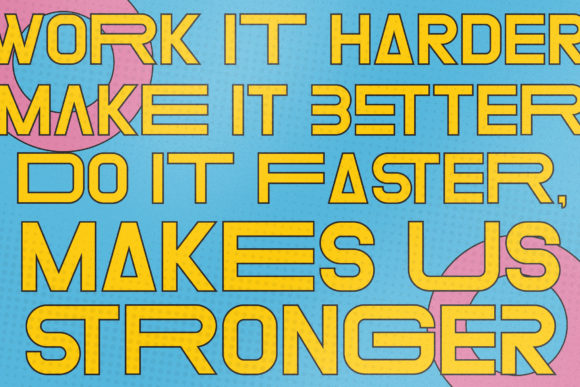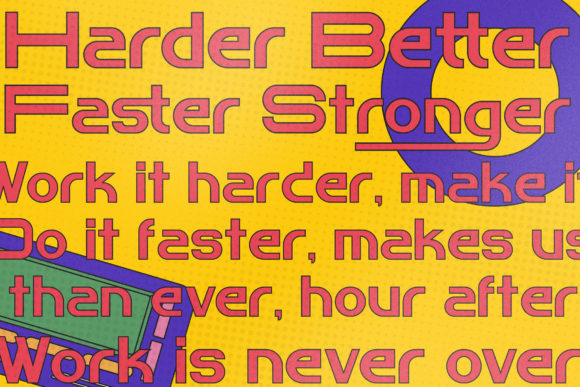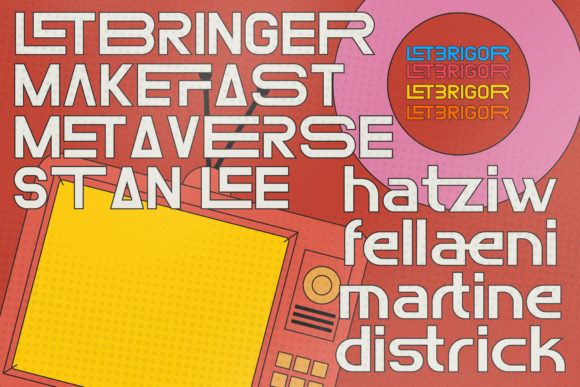
Introduction to Letbrigor Font
Meet the Letbrigor Font, a modern and classic display font that boasts a unique style and a neat look. Its versatility makes it a valuable resource for designers, perfect for creating eye-catching logos, book and movie title designs, fashion brand identities, magazine layouts, and even lettering and quotes.
Key Features of Letbrigor Font
- High-quality, professional font suitable for creative projects, including logos, branding, and design materials.
- Features a transparent background, allowing for seamless integration with various design elements and backgrounds.
- Designed with a unique, stylish aesthetic, perfect for adding a touch of sophistication to any creative project.
Honest Review: Letbrigor Font
I recently stumbled upon the Letbrigor Font, a versatile font that caught my attention for its unique style. As a designer, I appreciate fonts that can elevate a creative project and add a personal touch. The Letbrigor Font does just that.
- High-quality design: The Letbrigor Font is well-crafted, making it perfect for any design project.
- Transparency: The font has a transparent background, which can be easily edited to suit any design need.
- Style versatility: The Letbrigor Font can be used in various creative projects, from logos to brochures.
While the Letbrigor Font is an excellent addition to any design resource, I did notice a few limitations:
- Limited font sizes: The font may not be ideal for very large or very small text sizes.
- Not suitable for complex text: Due to its unique style, the Letbrigor Font may not be the best choice for complex text or paragraphs.
Overall Impression
The Letbrigor Font is a fantastic addition to any designer’s toolkit. Its unique style and high-quality design make it perfect for creative projects. While it may have a few limitations, it’s an excellent resource for designers looking for a free, versatile font. I highly recommend giving it a try!
Tips for Getting the Most Out of the Letbrigor Font
For the best results, use the Letbrigor Font in conjunction with a transparent background to give your design a professional look. You can also experiment with different font sizes and colors to add visual interest to your design.
Common Use Cases for the Letbrigor Font
The Letbrigor Font is ideal for use in a variety of creative projects, including logos, business cards, and social media graphics. Its high-quality design and transparent background make it a versatile resource for any designer.